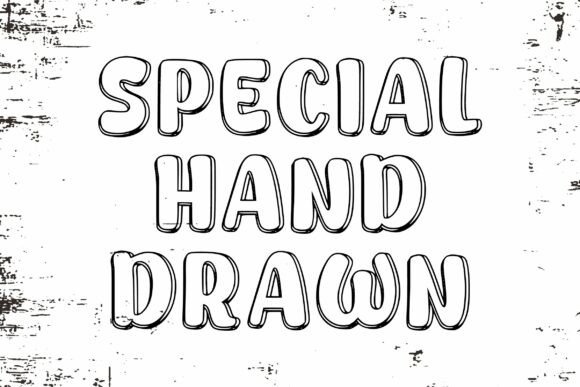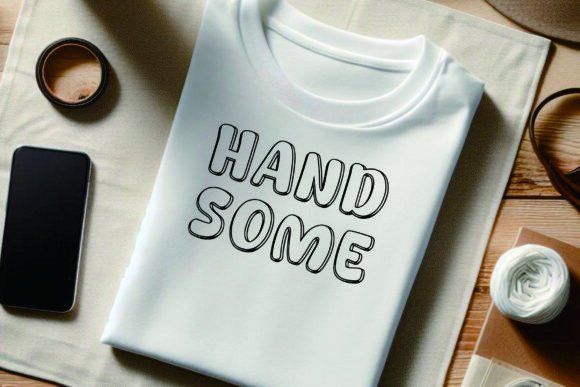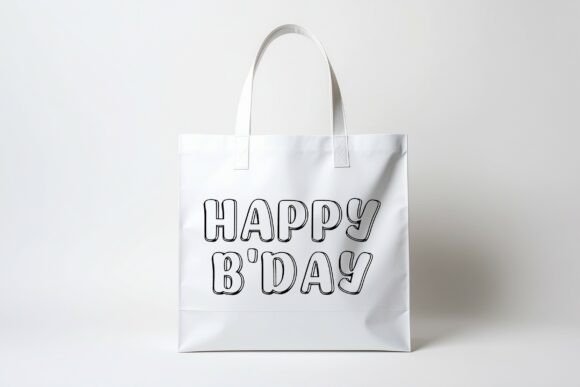
Introduction to Outline Drawing Font
Have you ever been brainstorming ideas for a creative project, only to have it all come together when you stumble upon the perfect font? For designers, finding that one special font can be a game-changer. Whether you’re working on a poster, branding, or packaging design, the right font can elevate your entire project and leave a lasting impression.
Enter the Outline Drawing Font, a bold and playful display font that’s sure to bring a smile to your face. Its thick outline letterforms and rounded edges create a fun, eye-catching look that’s perfect for a wide range of applications. From kids’ projects to social media graphics, this font adds a cheerful and modern touch to both digital and print designs.
Key Features of Outline Drawing Font
- High-quality, scalable design resource ideal for creative projects requiring unique illustrations and graphics.
- Features a transparent background, allowing for seamless integration with any design or background.
- Includes a range of outline drawing styles, making it an excellent design resource for various creative projects.
- Unique outline drawing font design, perfect for adding a creative touch to any design project.
Honest Review: Outline Drawing Font
As a designer, I’m always on the lookout for high-quality design resources to enhance my creative projects. Recently, I came across the Outline Drawing Font, and I must say, it’s been a game-changer.
Here are some things that work well with this font: ✨
- High-quality: The font is crisp and clear, making it perfect for illustrations, graphics, and other design elements.
- Transparent background: This feature allows me to easily place the font on any background, giving me complete control over the design.
- Wide compatibility: It works seamlessly with various design software, including Adobe Illustrator and Photoshop.
While the Outline Drawing Font is an excellent resource, there are a few limitations: ⚠️
- Limited customization: Some users may find the font’s outline style too simplistic for their needs.
- No bold or italic styles: The font only comes in regular style, which can be a limitation for certain design projects.
Overall, the Outline Drawing Font is an excellent design resource that’s perfect for illustrations, graphics, and other creative projects. While it may have some limitations, its high-quality design and transparent background make it a must-have for any designer.
Designing with Outline Drawing Font
The Outline Drawing Font is a free download that is perfect for any creative project. It has a transparent background, making it easy to use on any design resource. The font is high quality and can be used in a variety of designs, from logos to presentations.
The Outline Drawing Font is commonly used in designs that require a clean and minimalist look, such as logos, business cards, and presentations. It is also used in creative projects that require a high-quality font, such as infographics and illustrations.